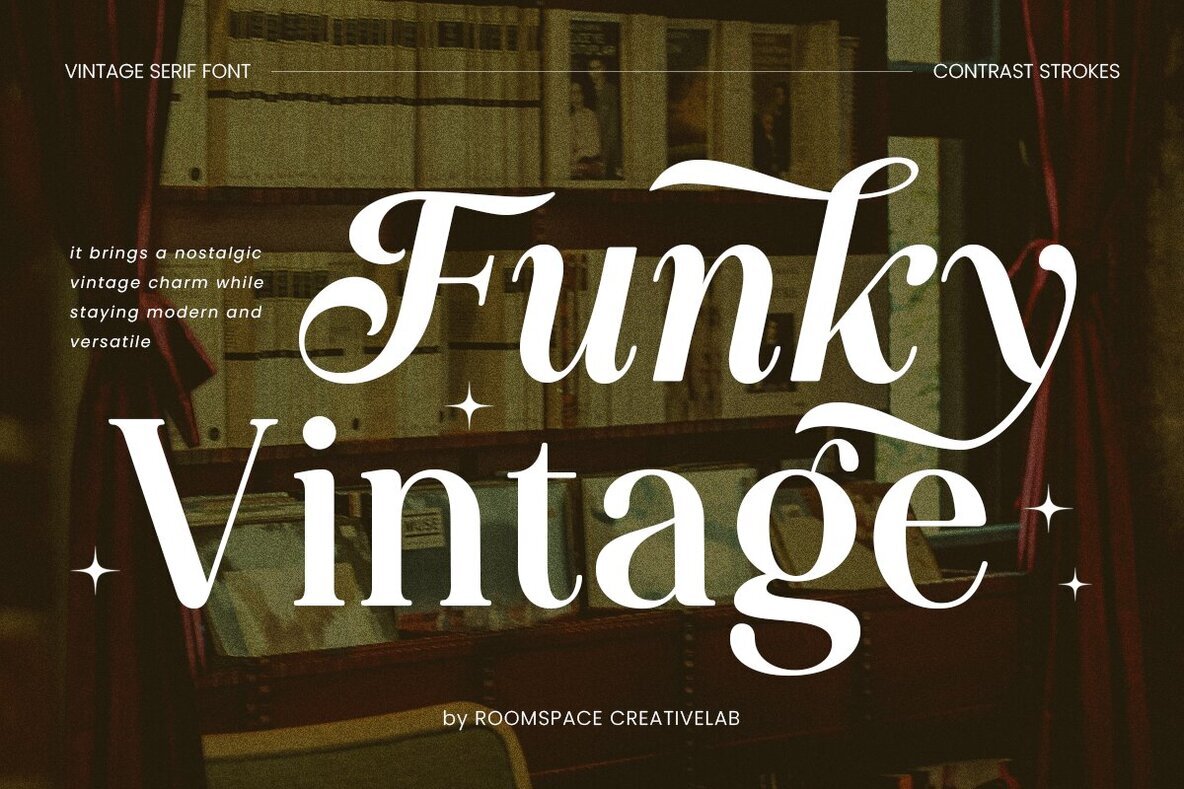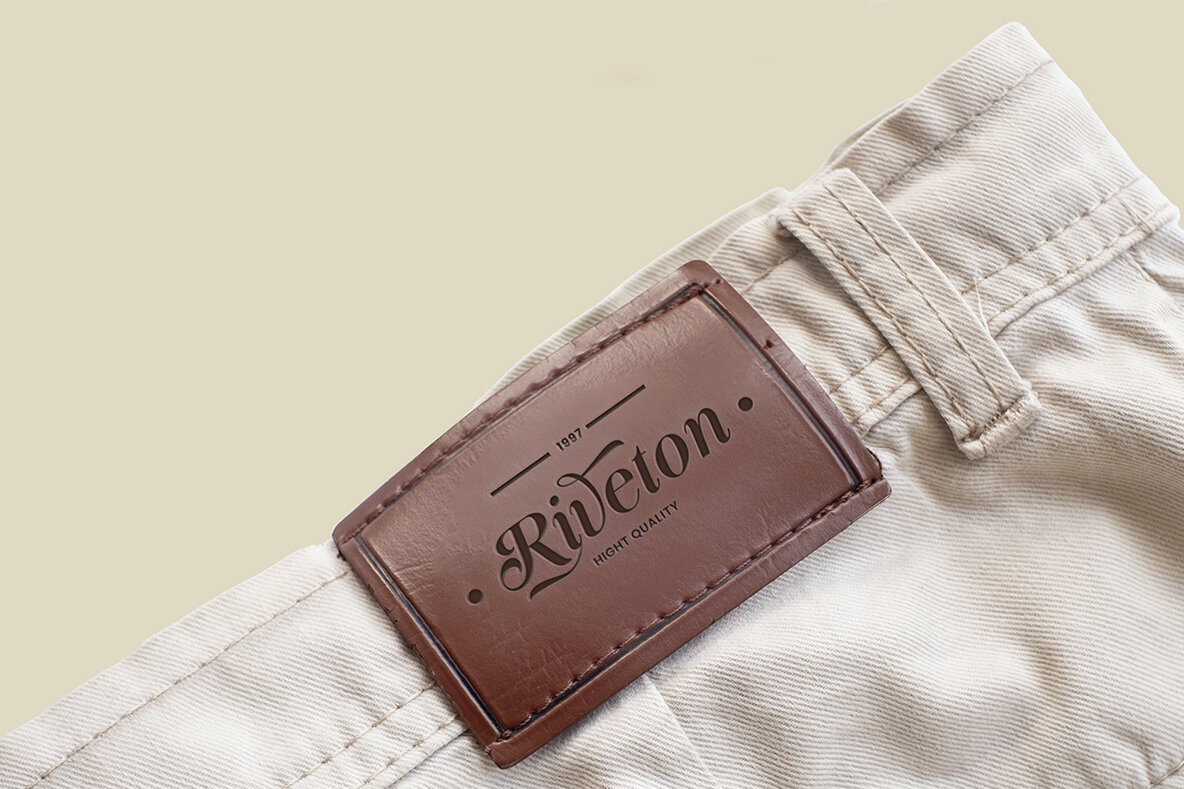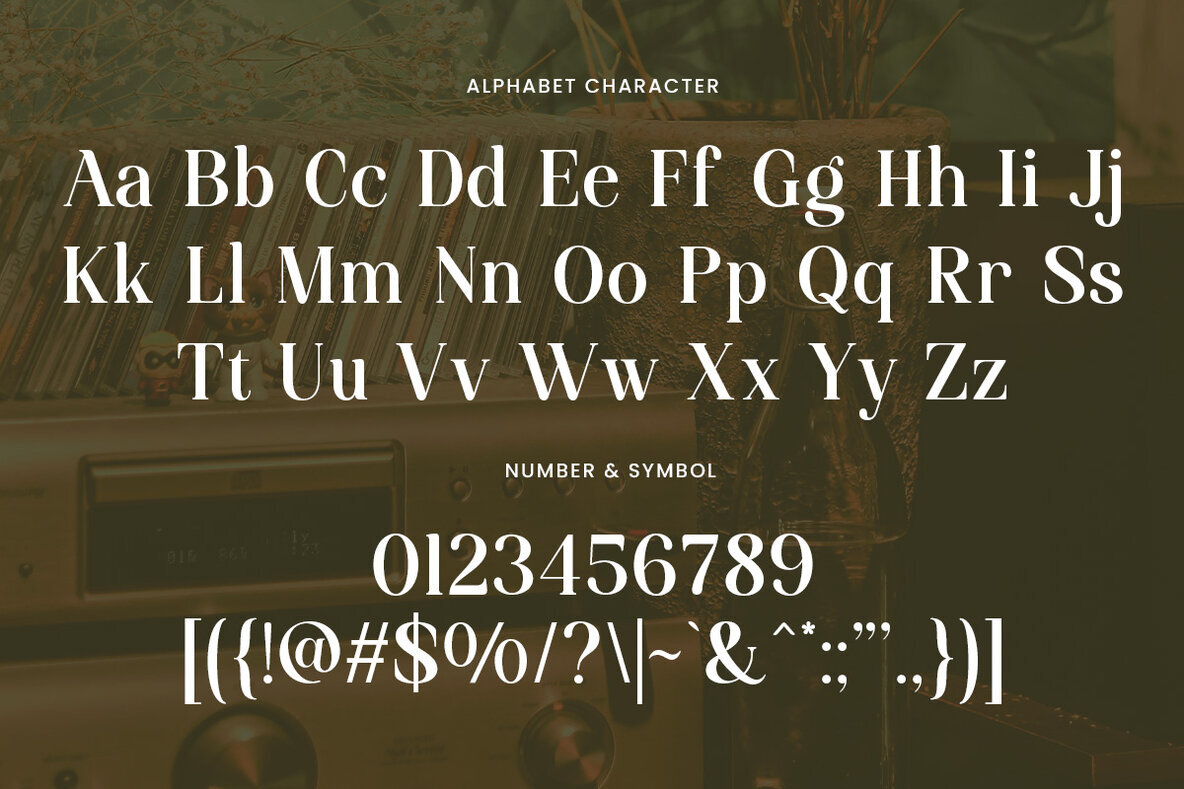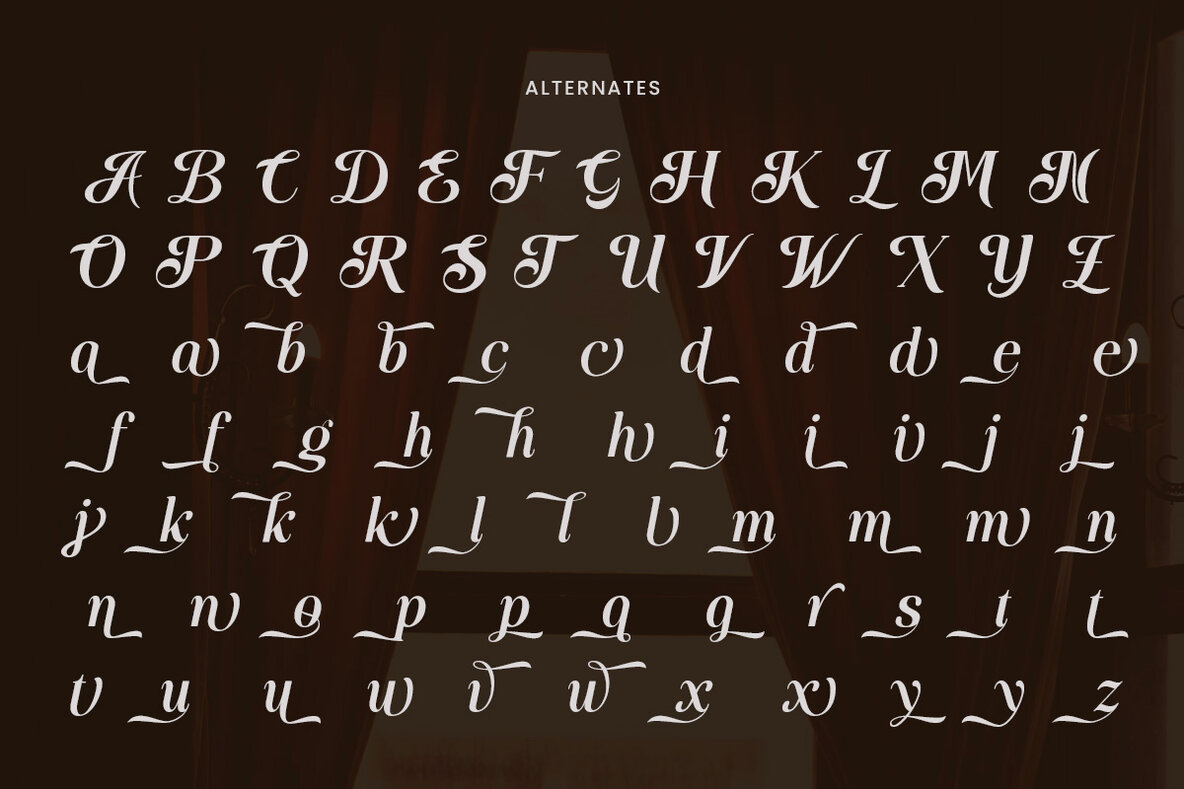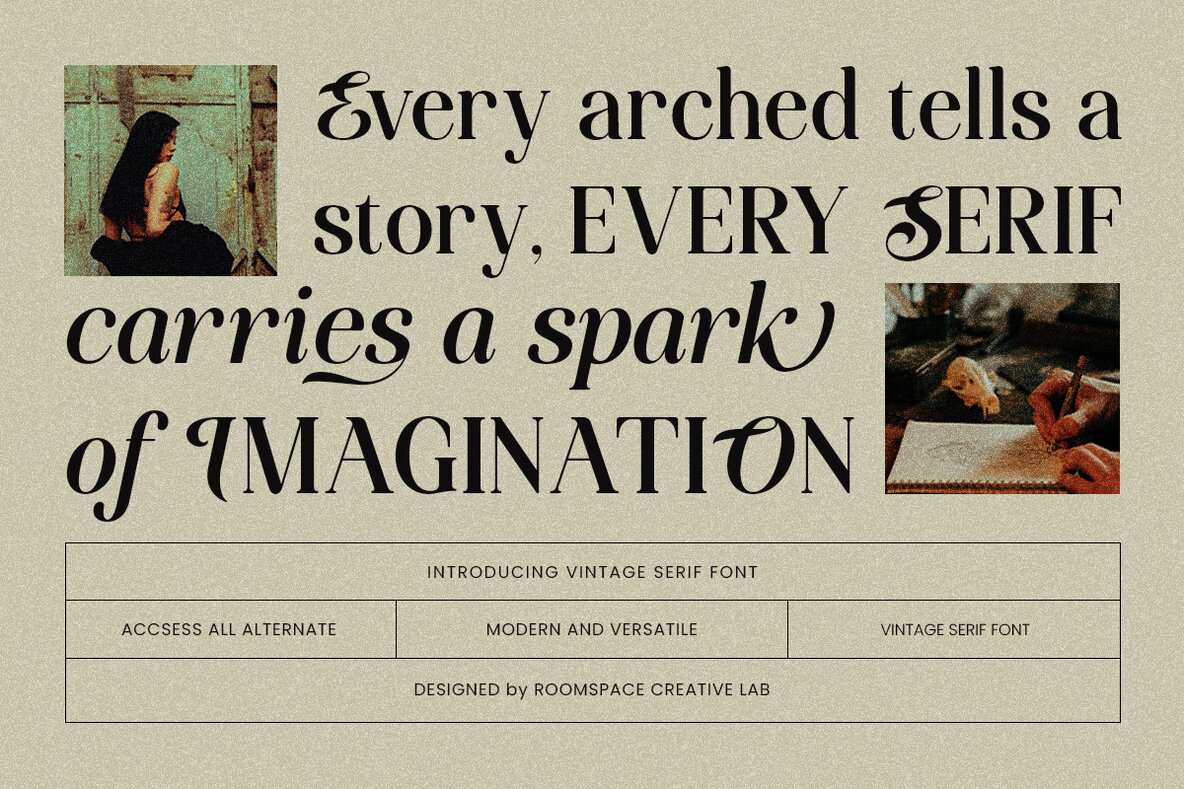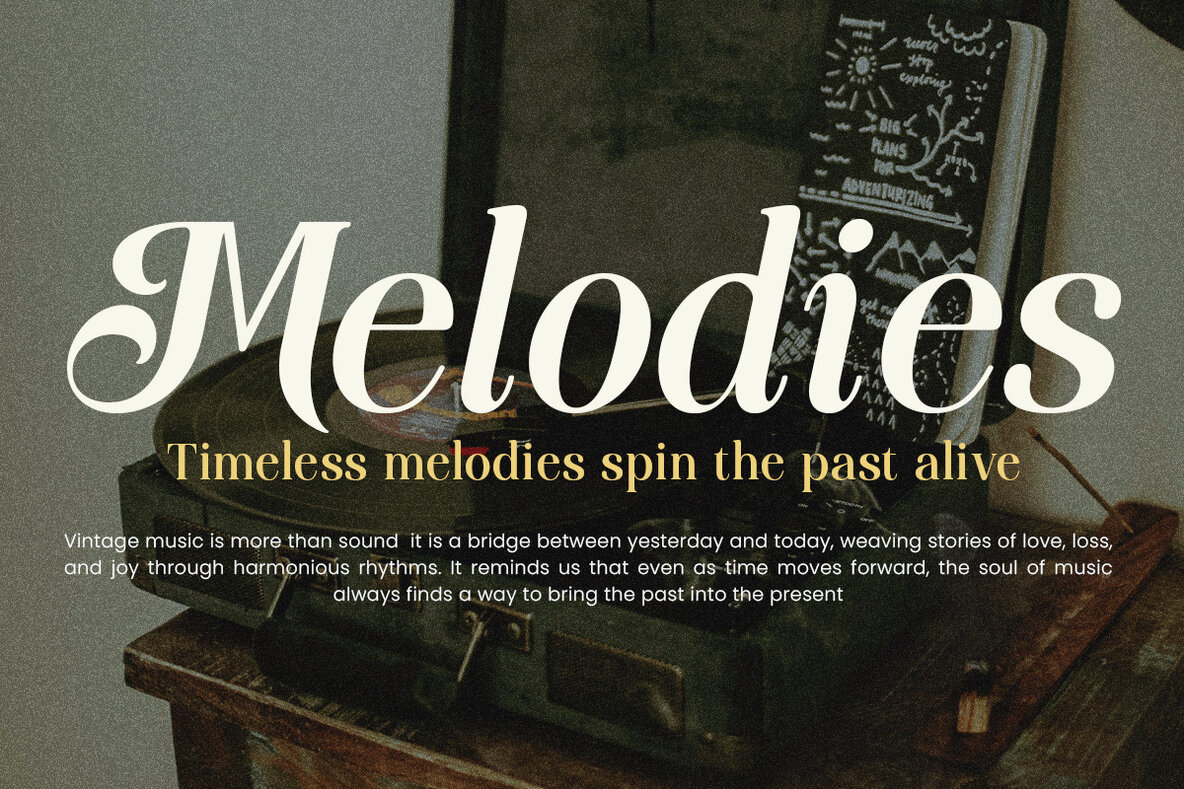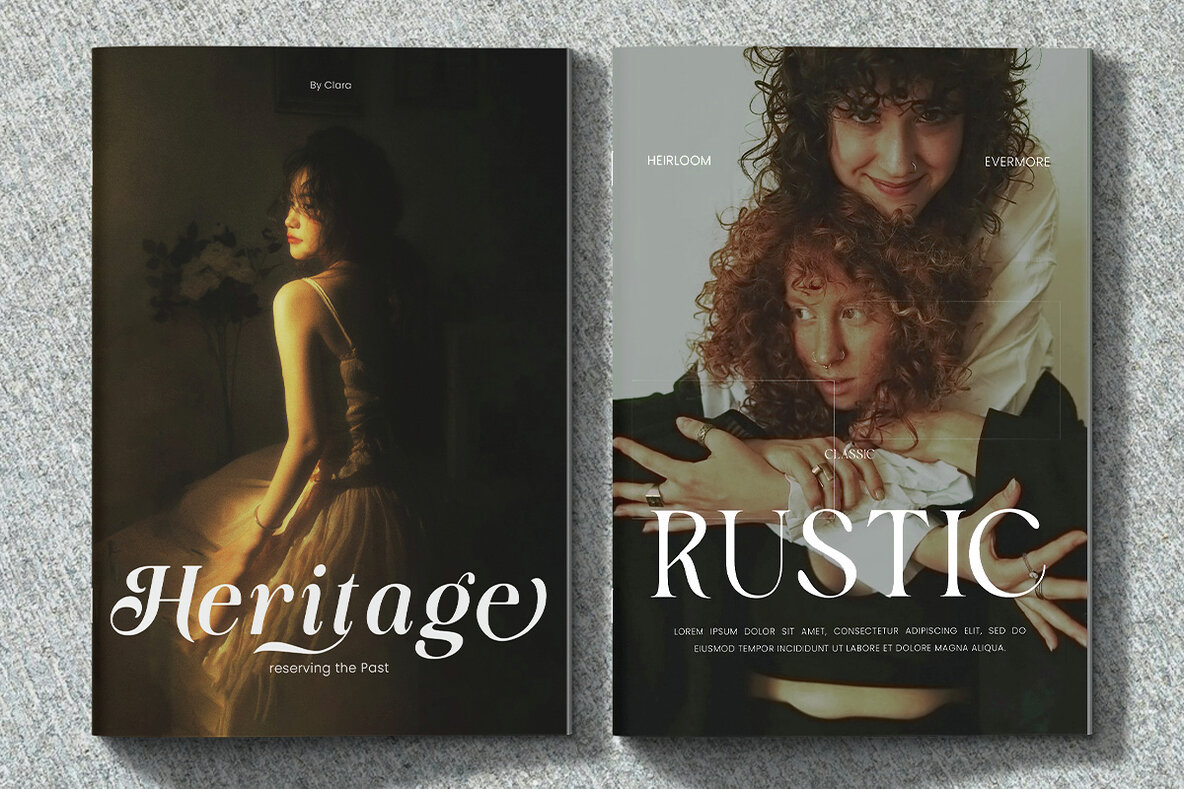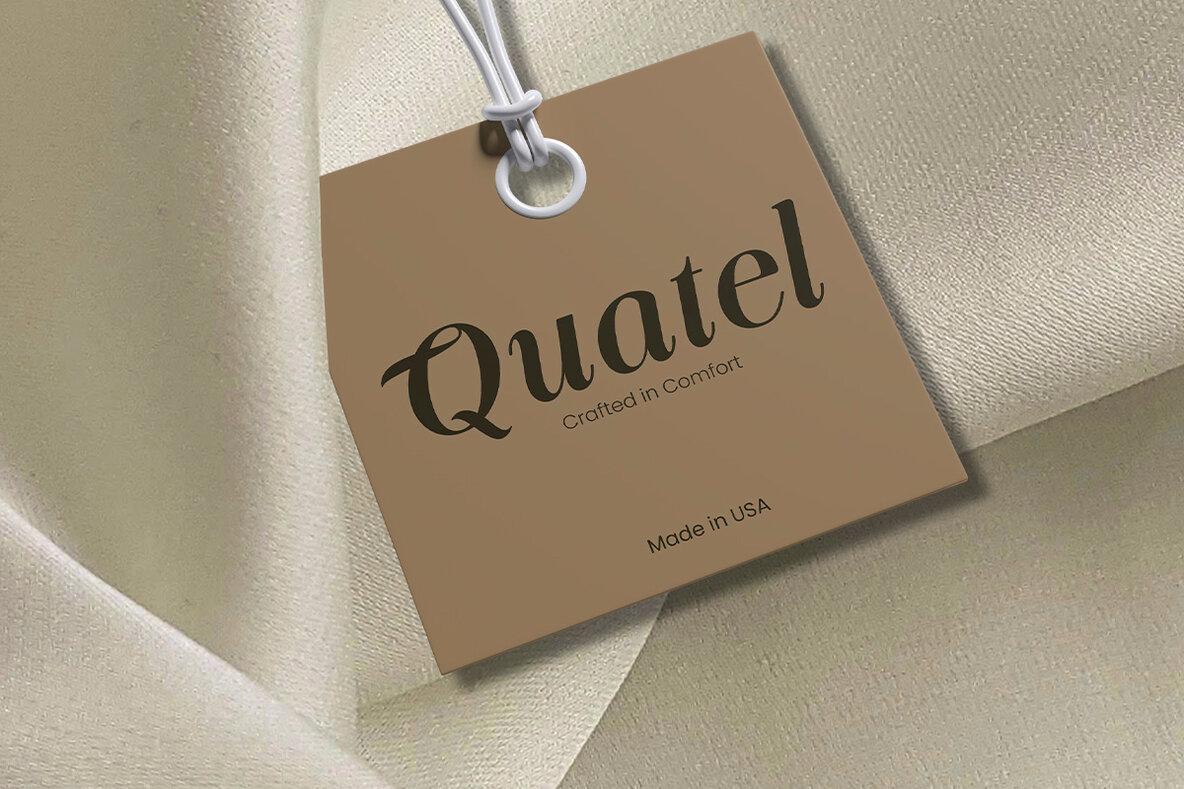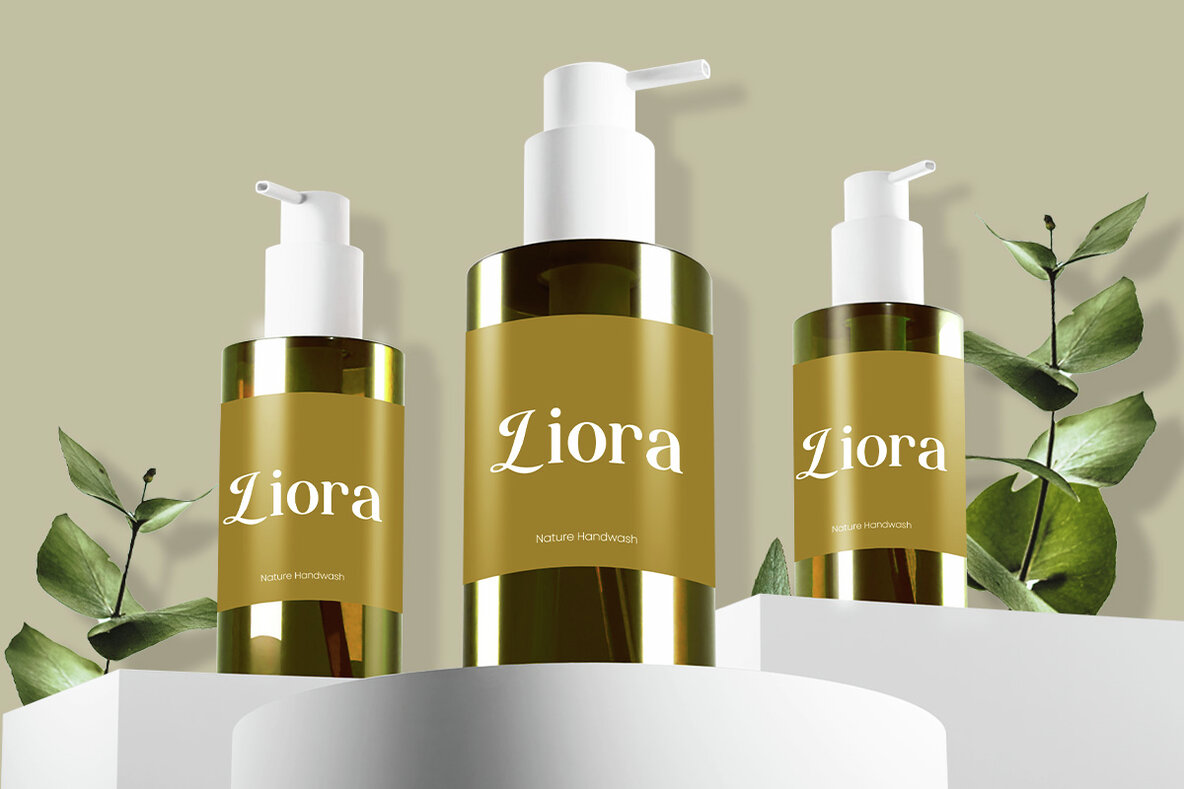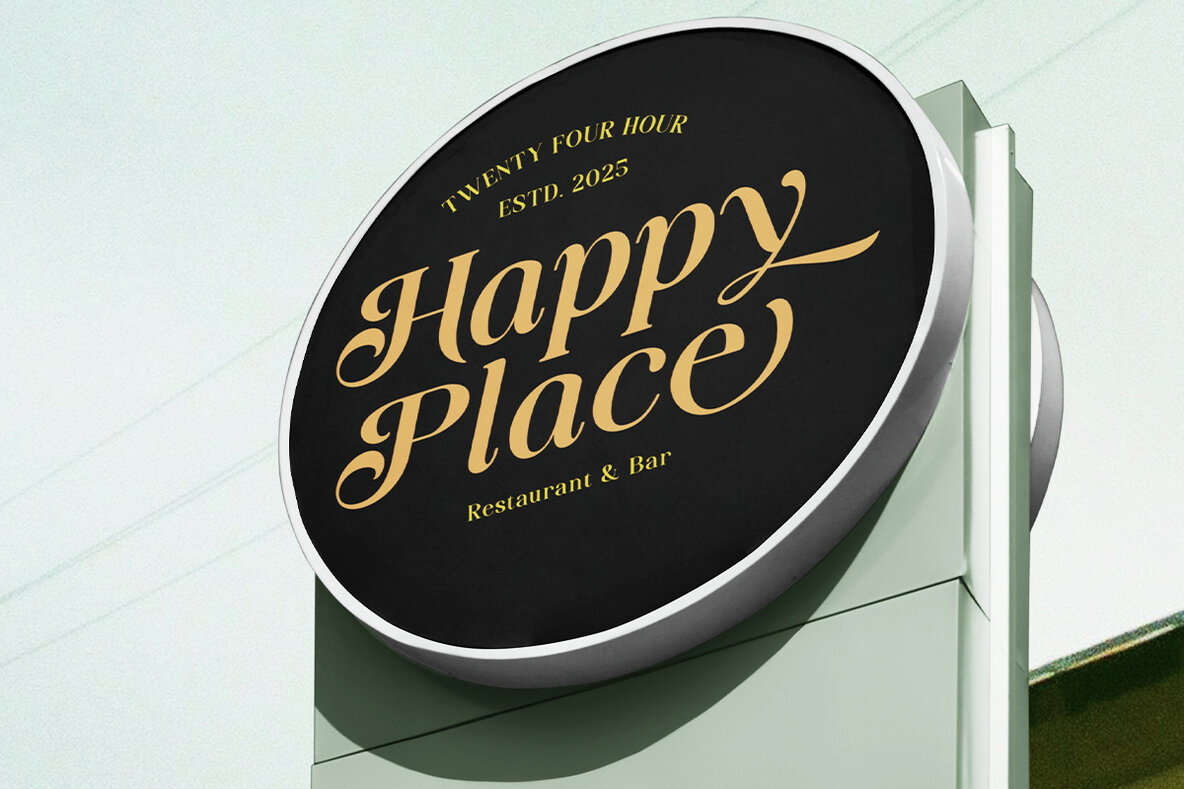
Funky Vintage Font
Funky Vintage is a bold serif display font inspired by retro typography yet tailored for today's designs. Balanced between nostalgic charm and modern sophistication, each character features confident strokes and thoughtful detailing. The bold lines, elegant curves, and refined kerning create a distinctive presence while ensuring readability across large and small formats. This font includes stylish alternates and ligatures, offering versatility and individuality for a wide range of creative projects. Enhance logos, branding, packaging, posters, social media graphics, editorials, and wedding invitations with Funky Vintage’s unique aesthetic. Its adaptable design makes it a reliable choice for any project seeking bold, memorable typography.Funky Vintage Bold Serif Display Font